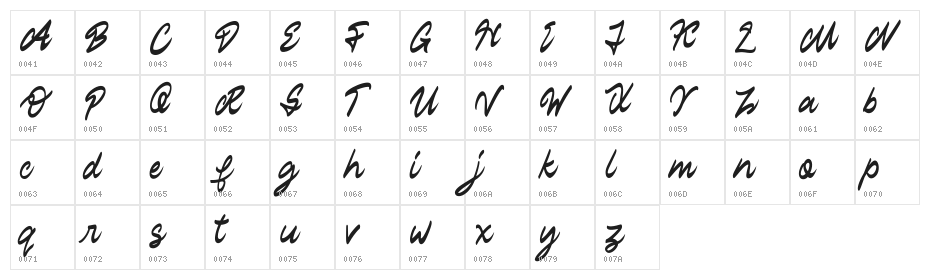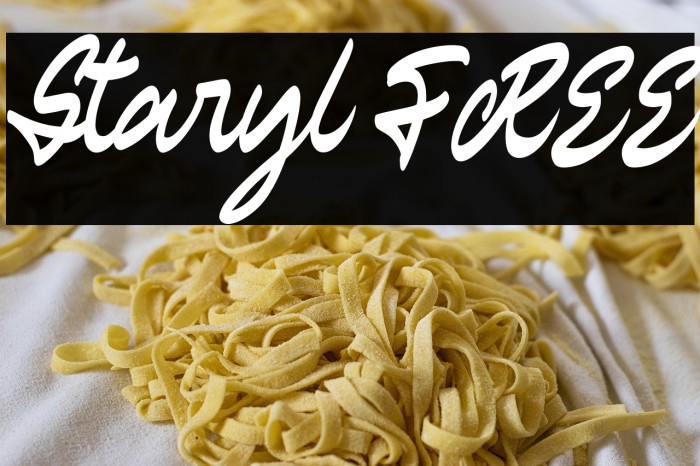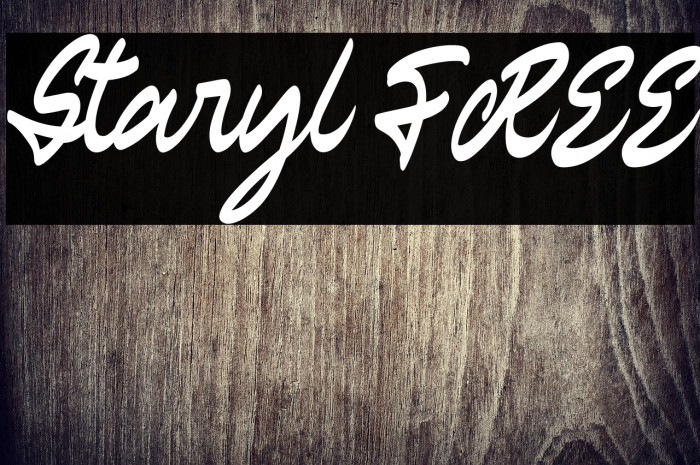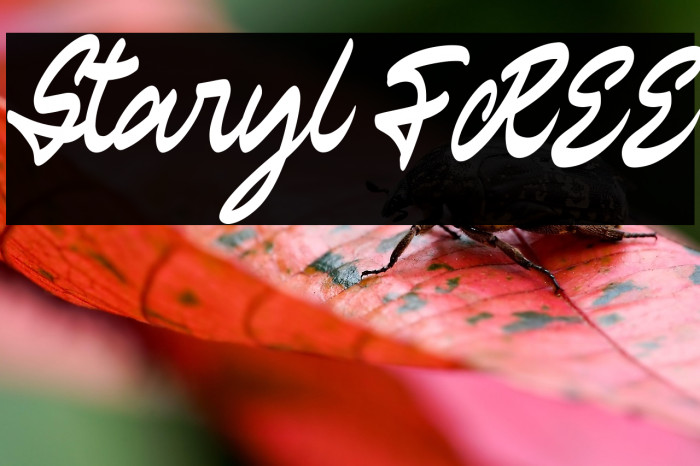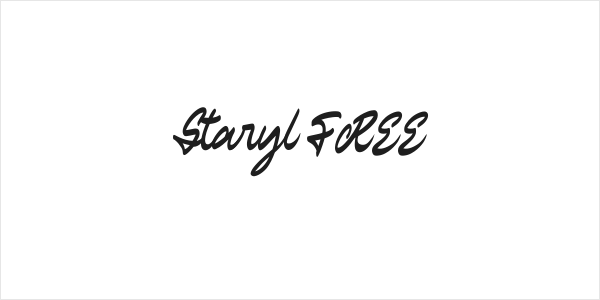
Staryl FREE Font
Staryl FREE Description
This font features a bold and expressive handwritten style with a strong cursive influence. The letters are interconnected, creating a fluid and dynamic appearance. The strokes are thick and consistent, providing a sense of confidence and energy. The uppercase and lowercase letters maintain a cohesive style, with slight variations in slant and curvature that add character. The font's design is both modern and playful, making it suitable for projects that require a personal touch. Its bold nature ensures it stands out, while the cursive elements add a touch of elegance.
| Proposed Projects | Ideal for branding, invitations, greeting cards, and social media graphics. |